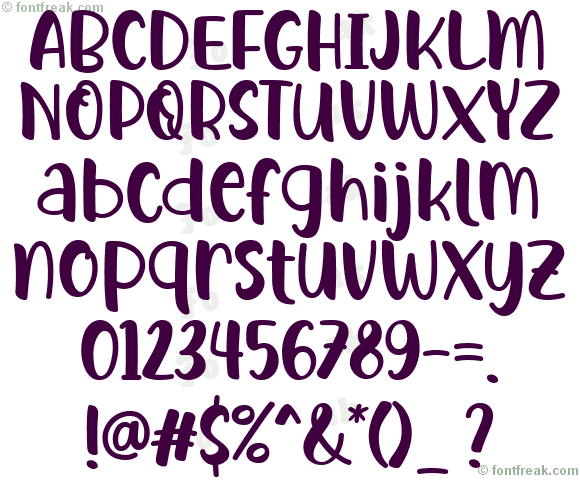
Kepo Coffee
About Kepo Coffee
Kepo Coffee by Situjuh Nazara is a charming handwritten font that brings a delightful warmth reminiscent of cozy coffee shop vibes. This font exudes a casual, friendly feel with its rounded edges and playful strokes, making it an excellent choice for projects that require a personal touch. The stroke weight is consistent, creating a harmonious look, while the moderate contrast adds just enough character without overwhelming the viewer. The spacing is well-balanced, allowing for easy readability, which is essential for both print and digital applications.
Kepo Coffee is particularly well-suited for a variety of creative uses. It shines in wedding invitations, where its informal style can convey warmth and intimacy. Additionally, it works beautifully on restaurant menus, helping to create a welcoming atmosphere that invites patrons to enjoy their dining experience. For graphic designers, this font can enhance branding materials for cafes or artisanal shops, giving a unique identity that captures the essence of the business. Content creators can also leverage its playful nature for social media graphics, ensuring that their posts stand out in a crowded feed.
The target audience for Kepo Coffee includes graphic designers, small business owners, and content creators looking for a font that adds personality and charm to their projects. The fact that it is available as a freeware makes it accessible for those on a budget, allowing creativity to flourish without financial constraints.
What truly sets the Kepo Coffee font apart is its ability to evoke a sense of comfort and familiarity. Its handwritten style invites connection and warmth, making it a perfect choice for anyone seeking to create engaging and inviting designs. For those interested, the Kepo Coffee font free download is a fantastic opportunity to incorporate this unique typeface into your creative toolkit.